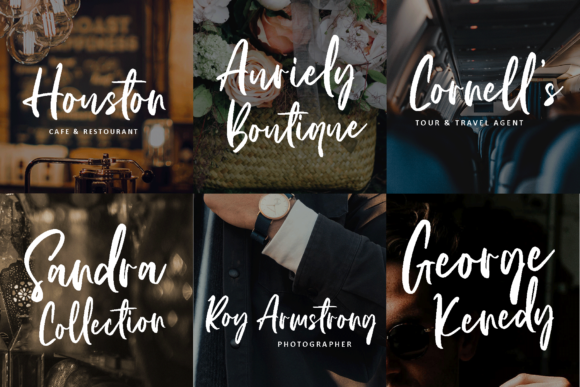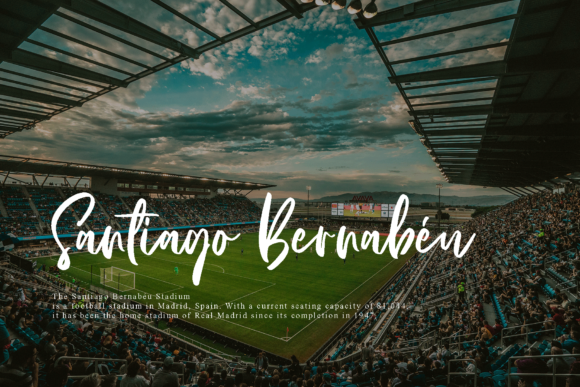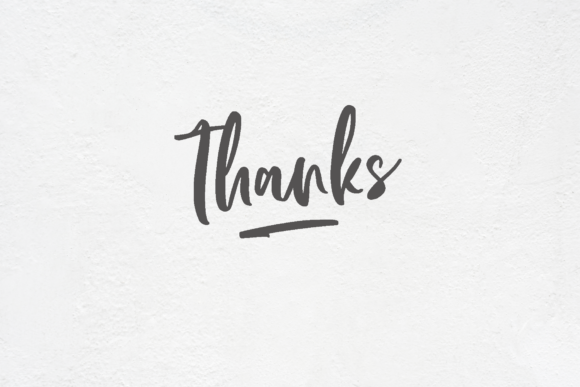
Introduction to Lorde Soon Font
Have you ever stared at a blank canvas, waiting for the perfect font to bring your creative project to life? For designers, this moment can be both exhilarating and frustrating. But what if I told you there’s a font that can turn that blank space into a work of art? Enter the Lorde Soon Font, a stunning script font that’s sure to elevate your designs to the next level.
This elegant font is more than just a pretty face – its great width makes it a versatile design resource for a wide range of media designs. From quotes and watermarks to business cards and wedding designs, the Lorde Soon Font is a valuable addition to any designer’s toolkit. And the best part? It’s available for free download, making it an accessible high-quality design resource for designers of all levels.
Lorde Soon Font
- High-quality design resource for creative projects, featuring a modern and elegant aesthetic.
- Unique characteristic: Unique ligatures and swashes, adding a touch of personality to any design project.
Honest Review: Lorde Soon Font
I recently stumbled upon the Lorde Soon Font while searching for a free download to enhance a creative project. The font immediately caught my attention due to its unique and quirky design.
- ✨ High quality design with intricate details
- ✨ Perfect for adding a touch of personality to a design project
One of the standout features of the Lorde Soon Font is its ability to add a touch of sophistication to a design without being too overpowering. The font’s unique design makes it an excellent choice for designers looking to add some flair to their work.
- ⚠️ Limited character set may require additional font combinations for complex designs
- ⚠️ Some users may find the font’s quirky design too distracting for certain projects
Overall, the Lorde Soon Font is a valuable design resource that can add a unique touch to a creative project. While it may have some limitations, its high-quality design and transparent background make it a worthwhile download for designers looking to experiment with new fonts.
Lorde Soon Font is a versatile design resource that can be used in a variety of creative projects, including: